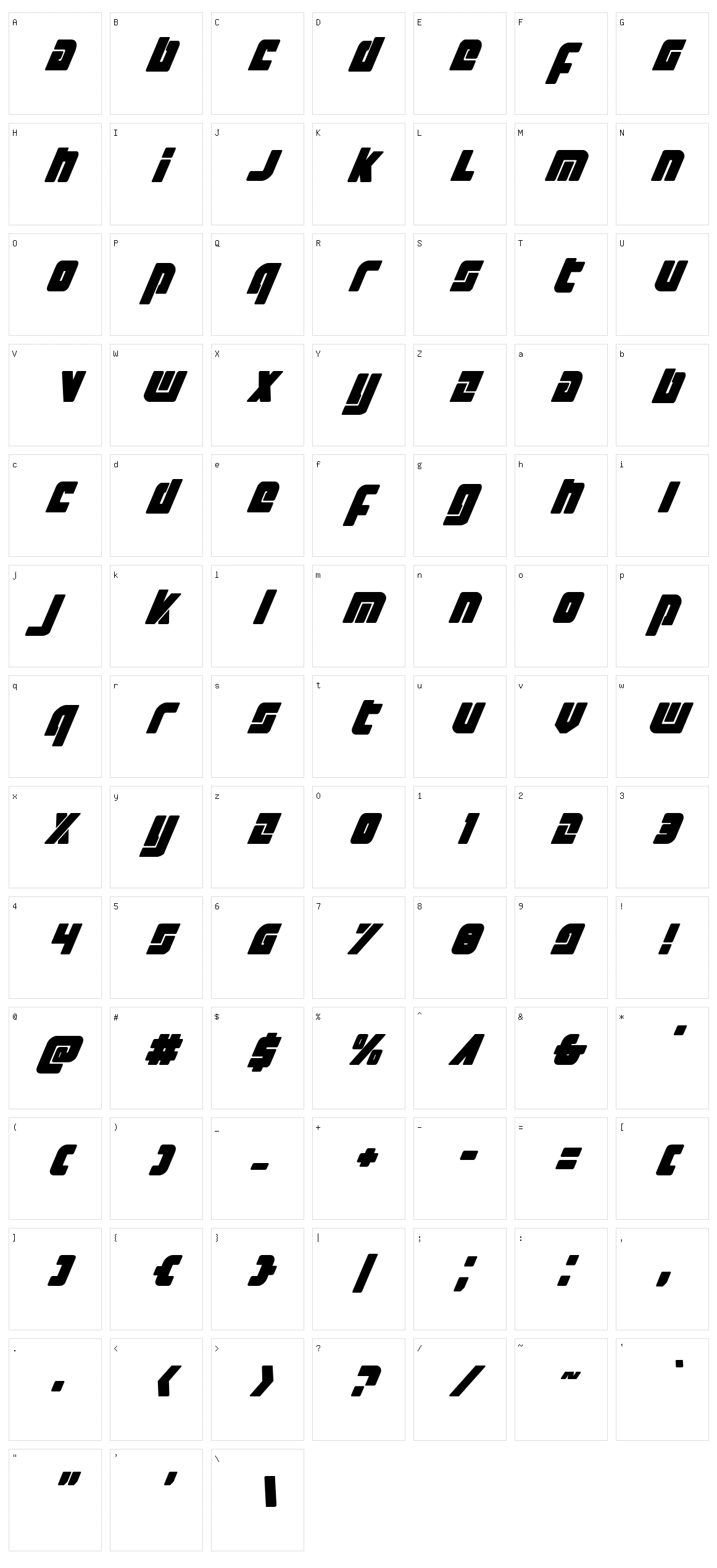
Exoplanet
This font comes with the following 9 versions: Regular, Italic, Condensed, Condensed Italic, Expanded, Expanded Italic, 3D, 3D Italic and Leftalic.